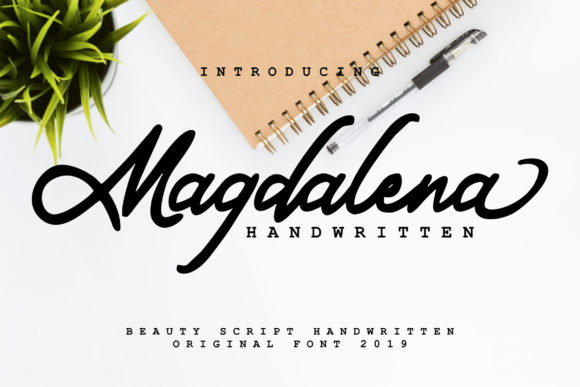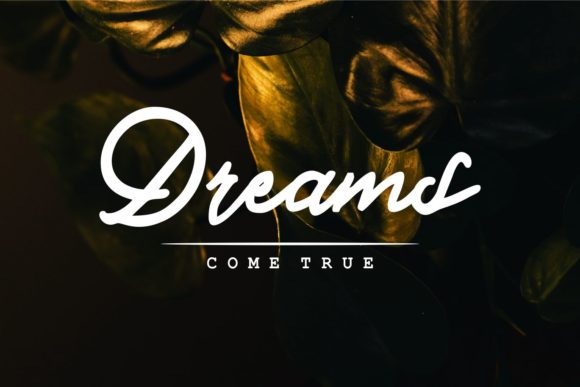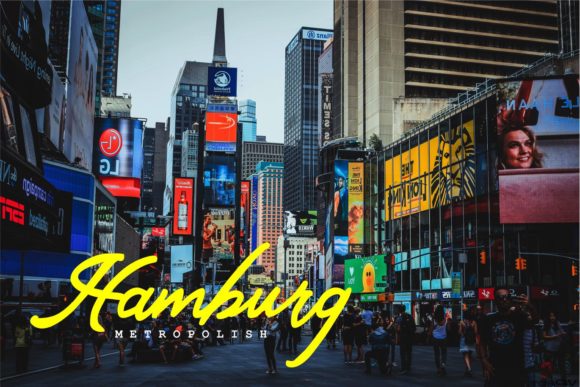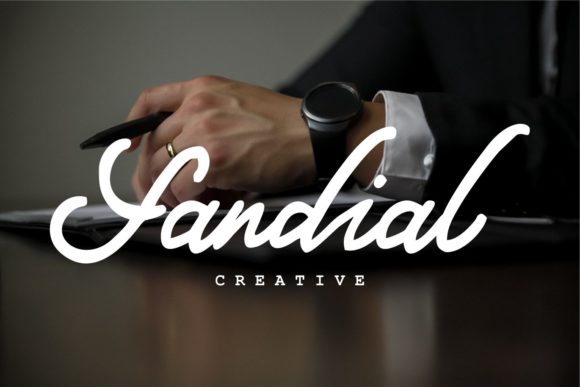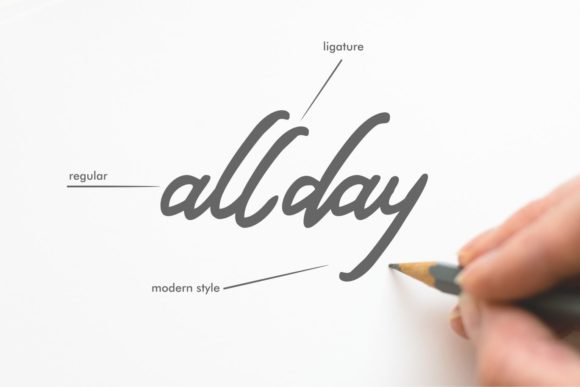
Magdalena Font
About Magdalena Font
Magdalena is a stunning and light handwritten font with a unique feel. Use it to add a charming twist to any design project.